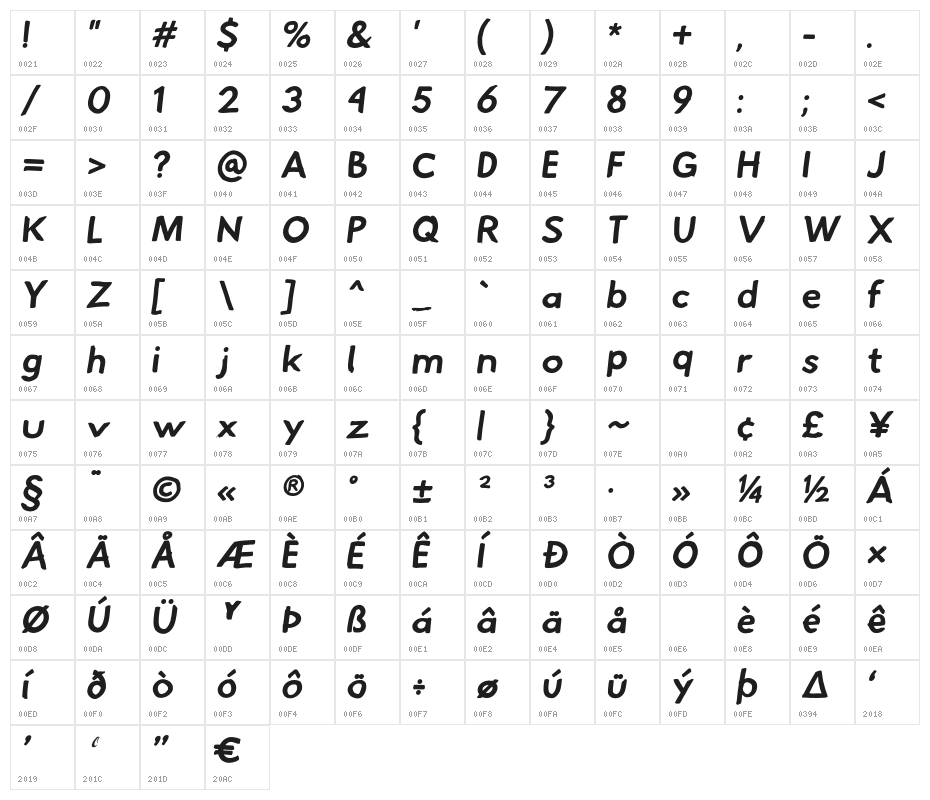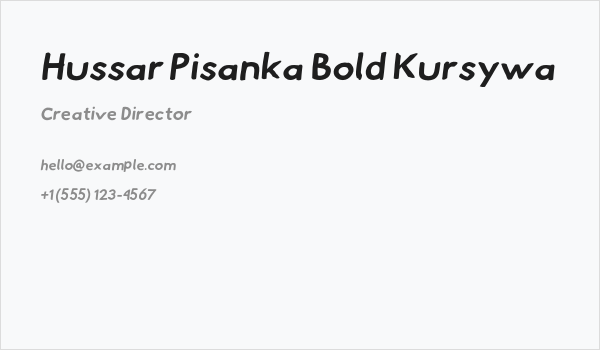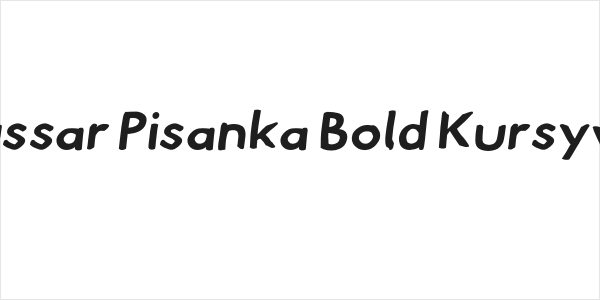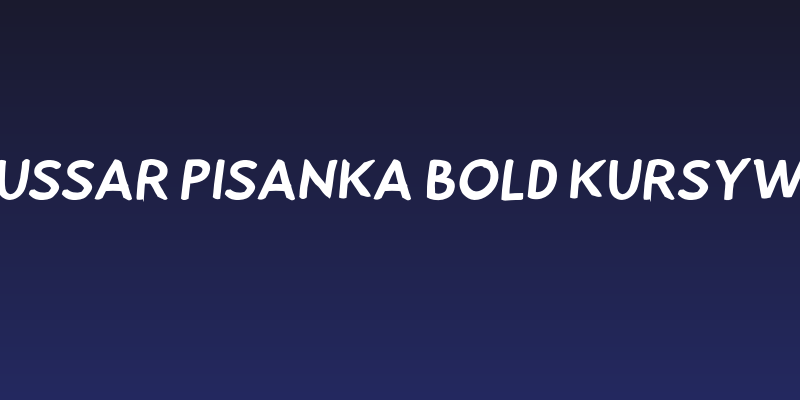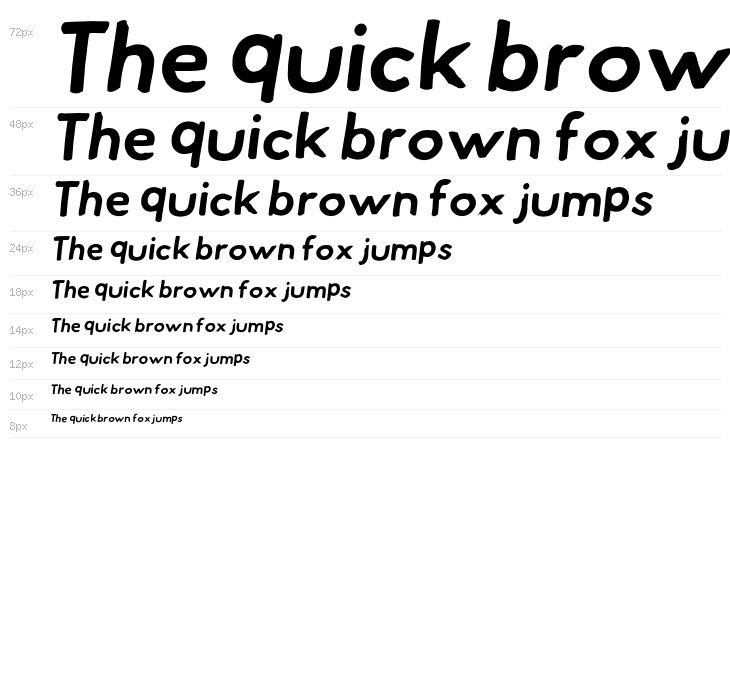
Hussar Pisanka Bold Kursywa Font
Hussar Pisanka Bold Kursywa Description
This font features a bold and dynamic style with a cursive flair, combining elements of both script and sans-serif characteristics. The letters are slightly slanted, giving a sense of motion and fluidity. The strokes are thick and consistent, providing a strong visual impact. The uppercase letters are well-proportioned, while the lowercase letters maintain a friendly and approachable appearance. The numerals are clear and legible, matching the overall boldness of the font. Special characters are included, maintaining the same stylistic approach, making it versatile for various uses.
| Proposed Projects | Ideal for branding, advertising, and headlines where a bold and friendly impression is desired. |